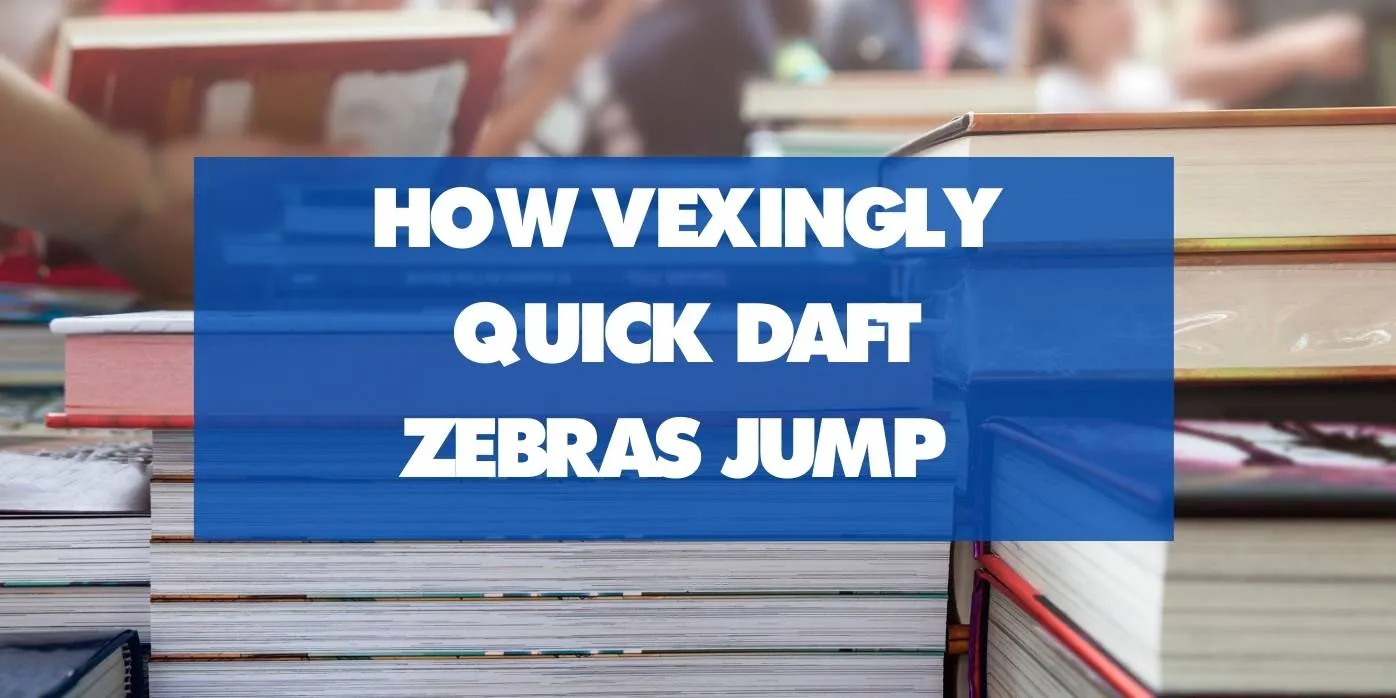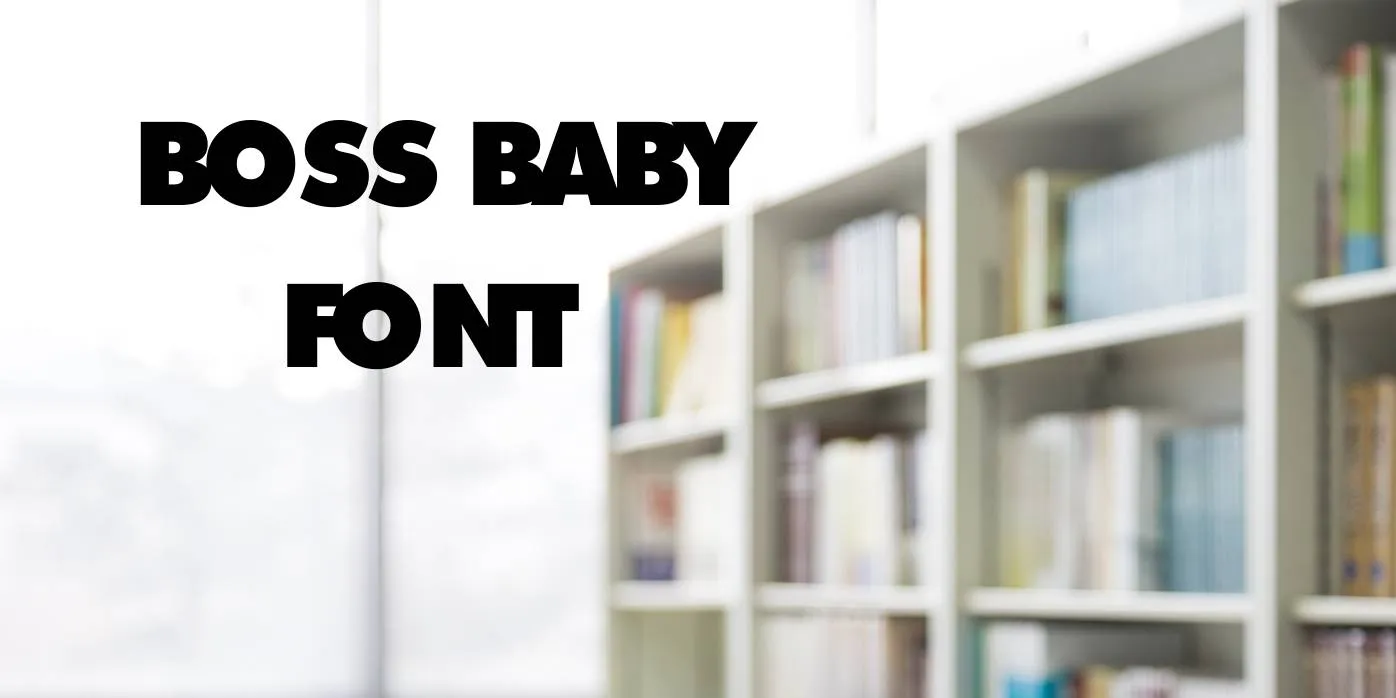
Boss Baby Font
Boss Baby Font is a popular animated movie that was released in 2017. The movie follows the story of a baby who is actually a secret agent. The movie was a big hit with kids and adults alike. This typeface was designed by TFonts1.
It belongs to the Fancy Fonts. This Movie is based on Comic books. This tremendous font includes more than 240 advanced and standard Characters these are perfect for Movie Posters, Comic Books, and Children’s books. It also supports European languages.